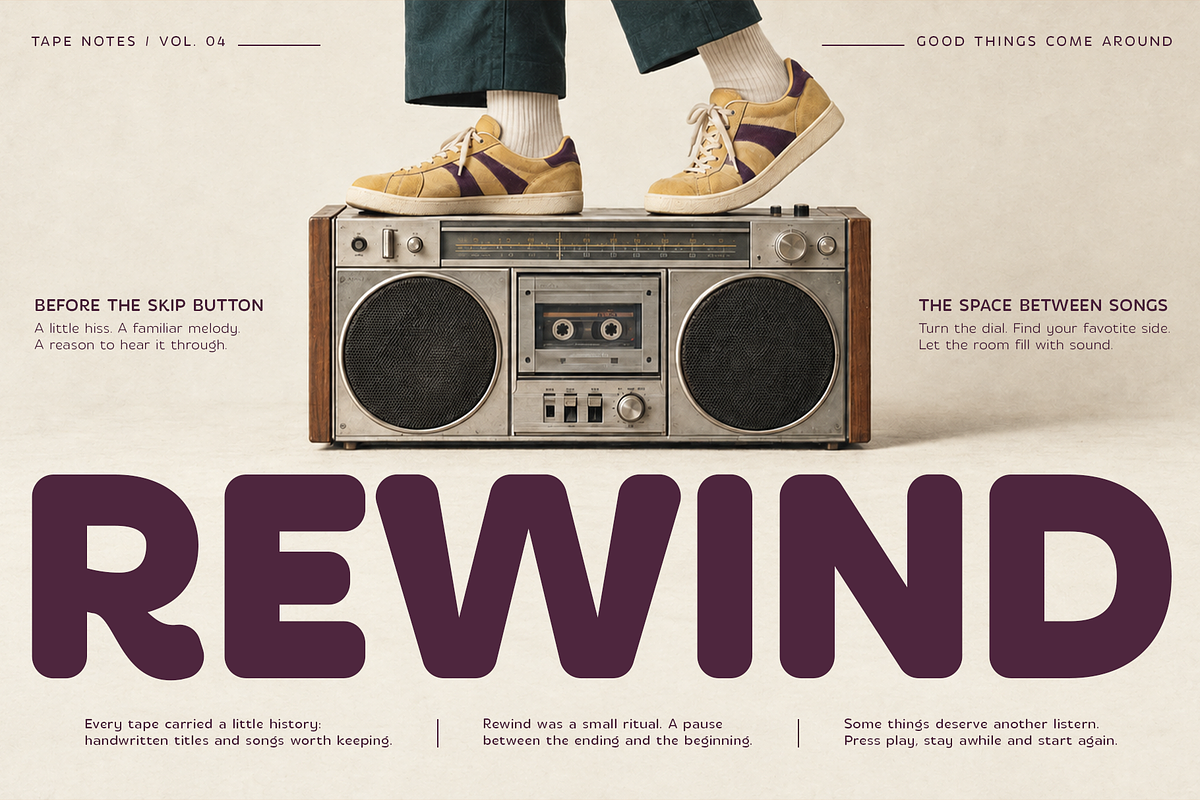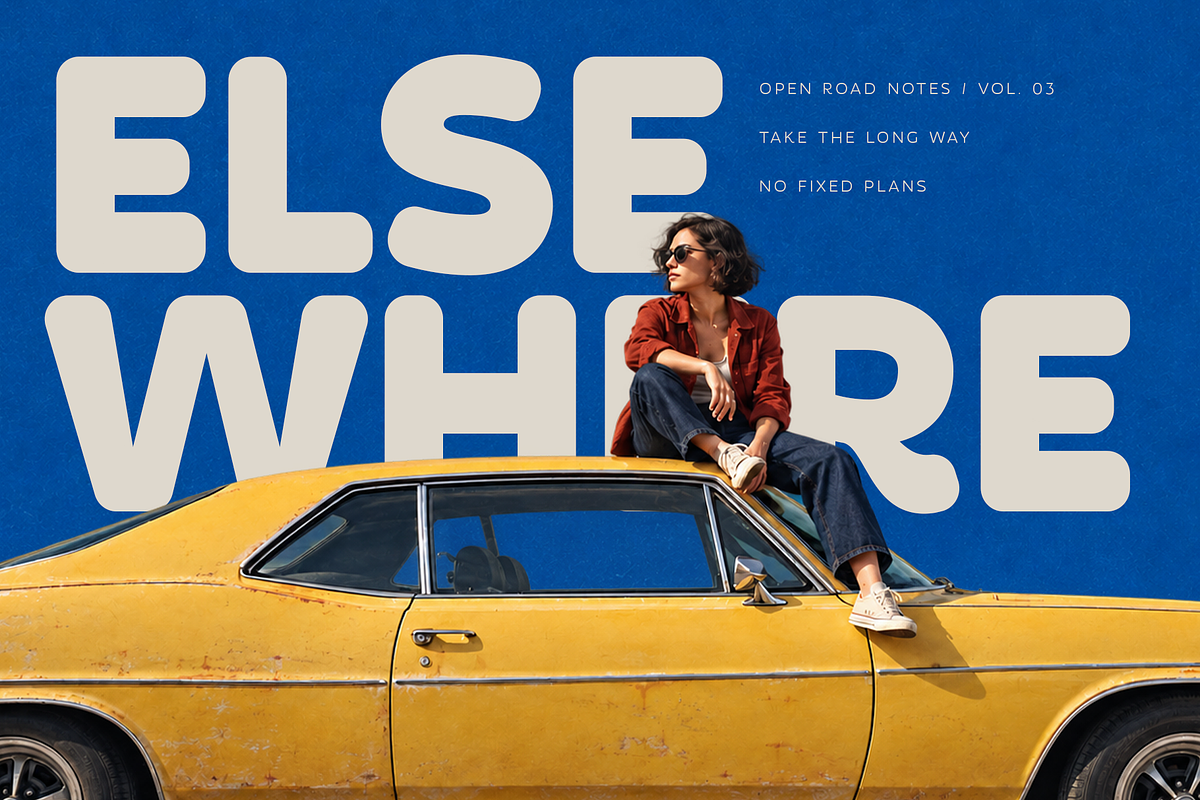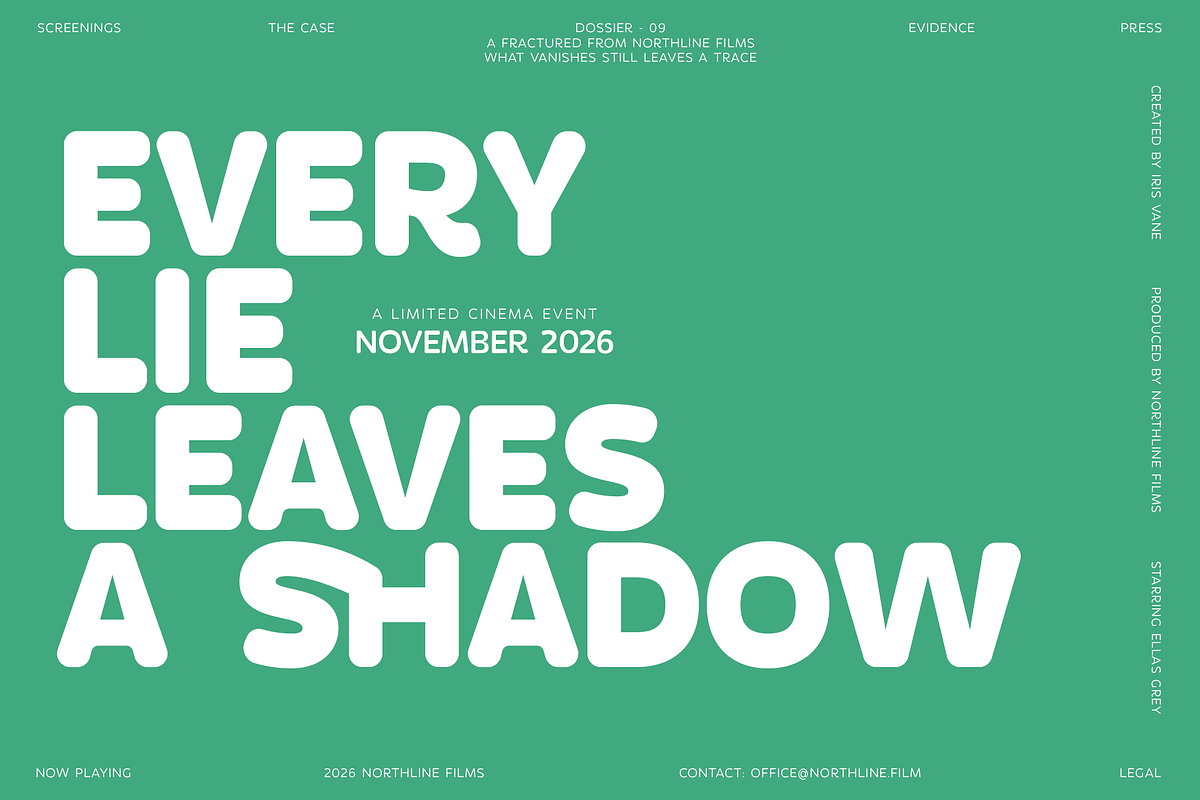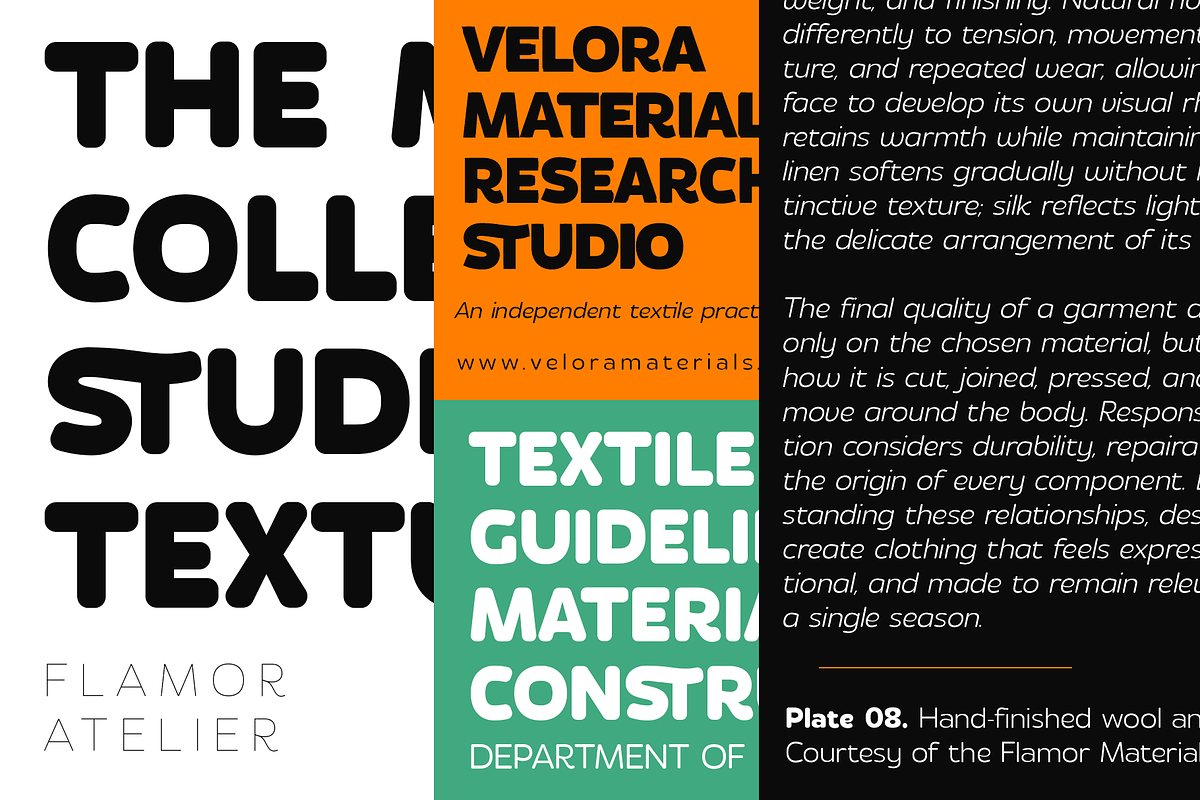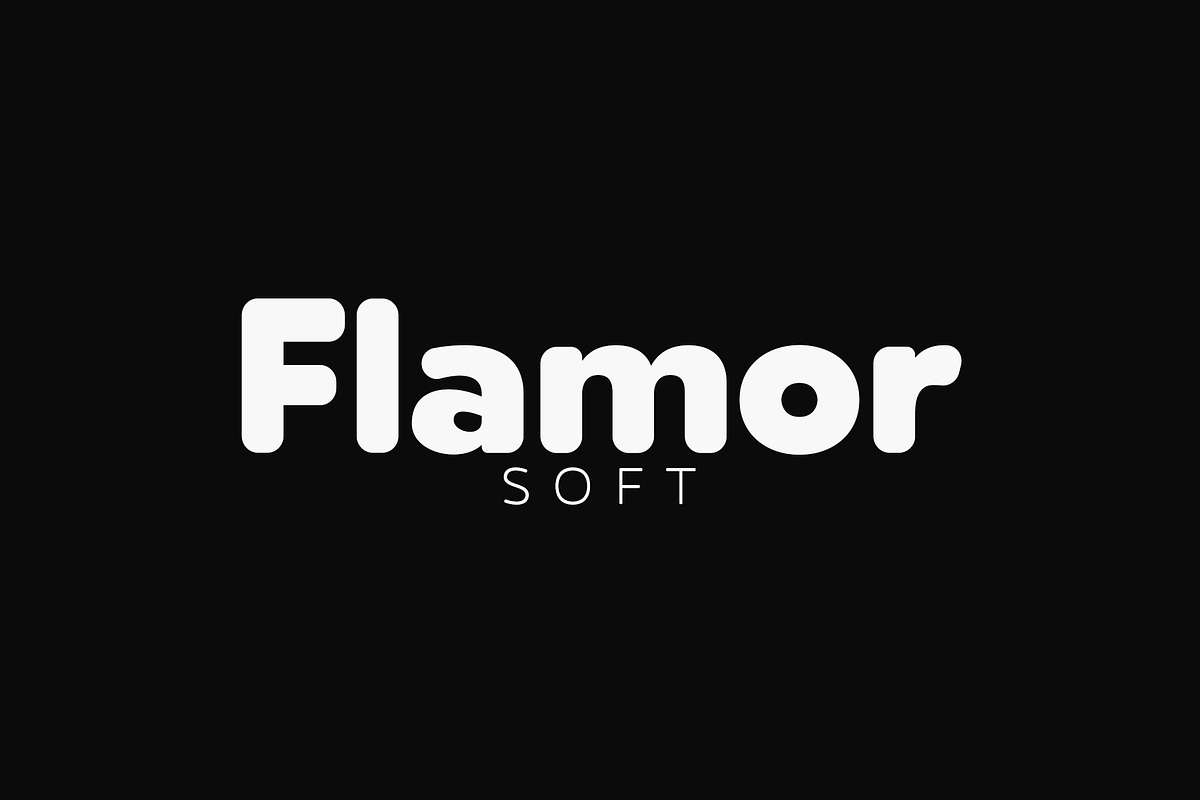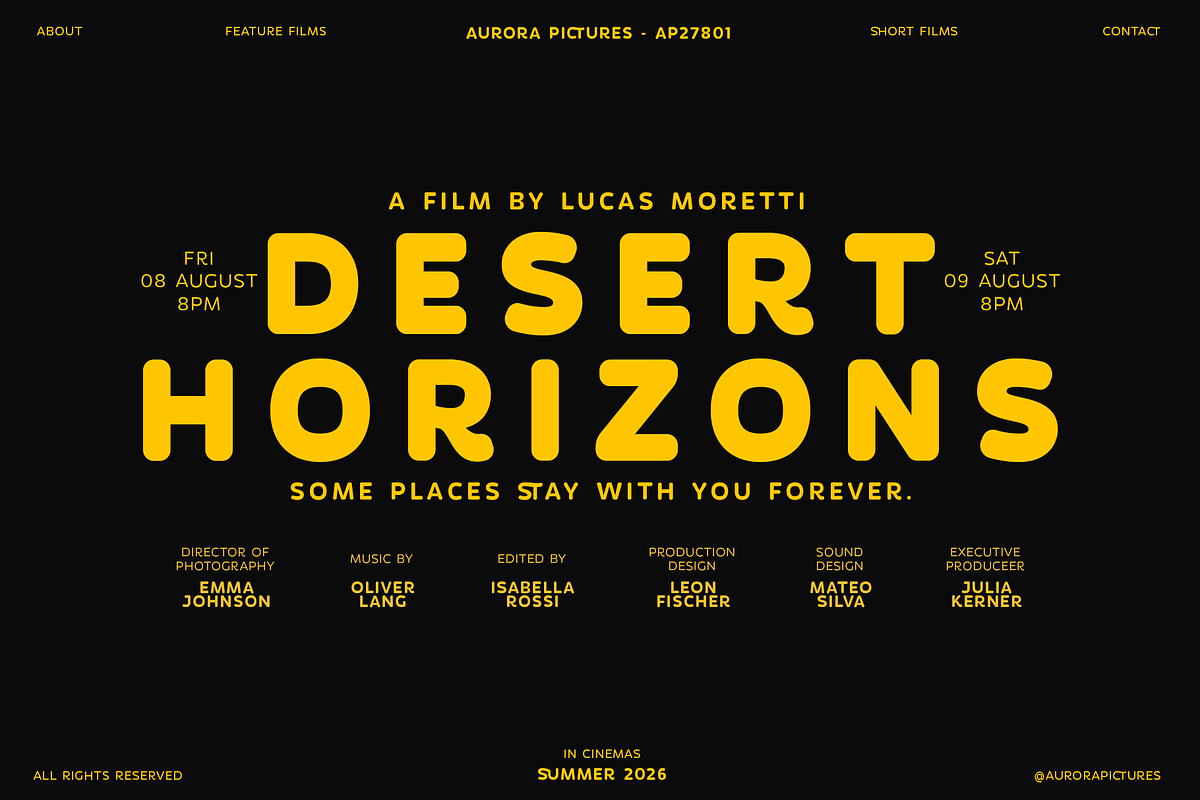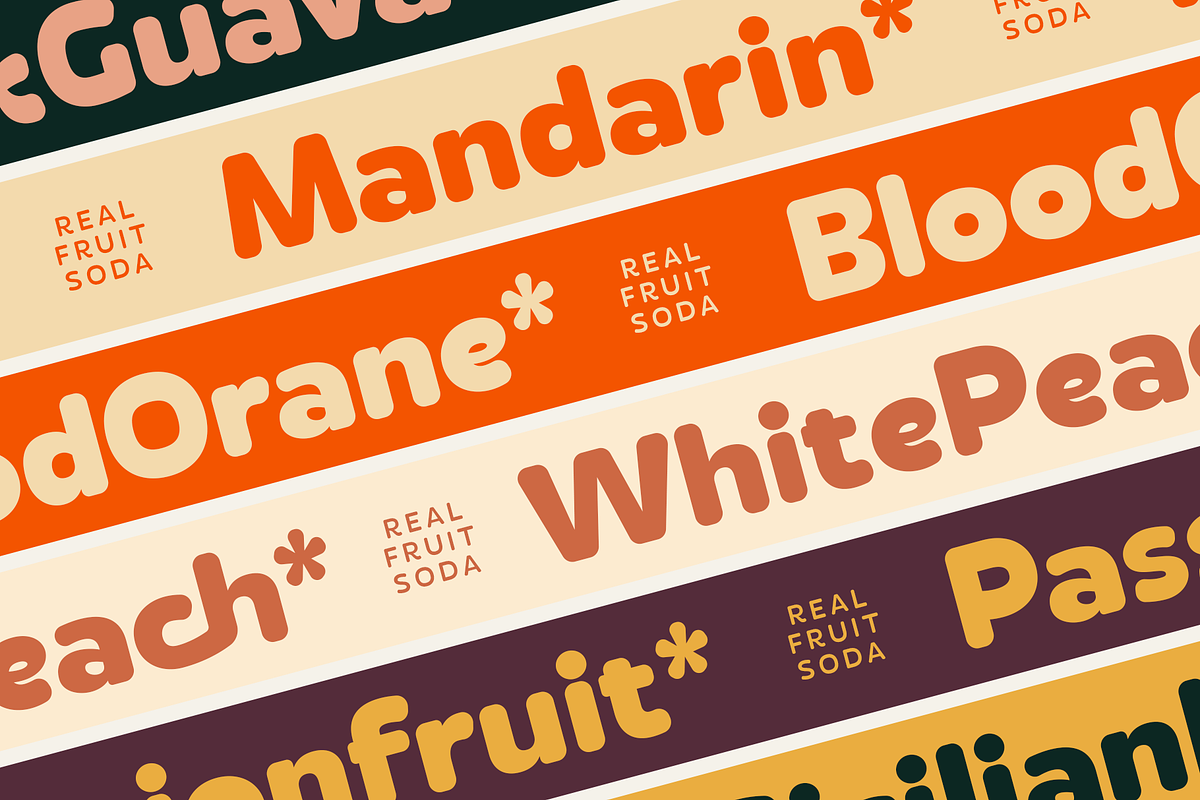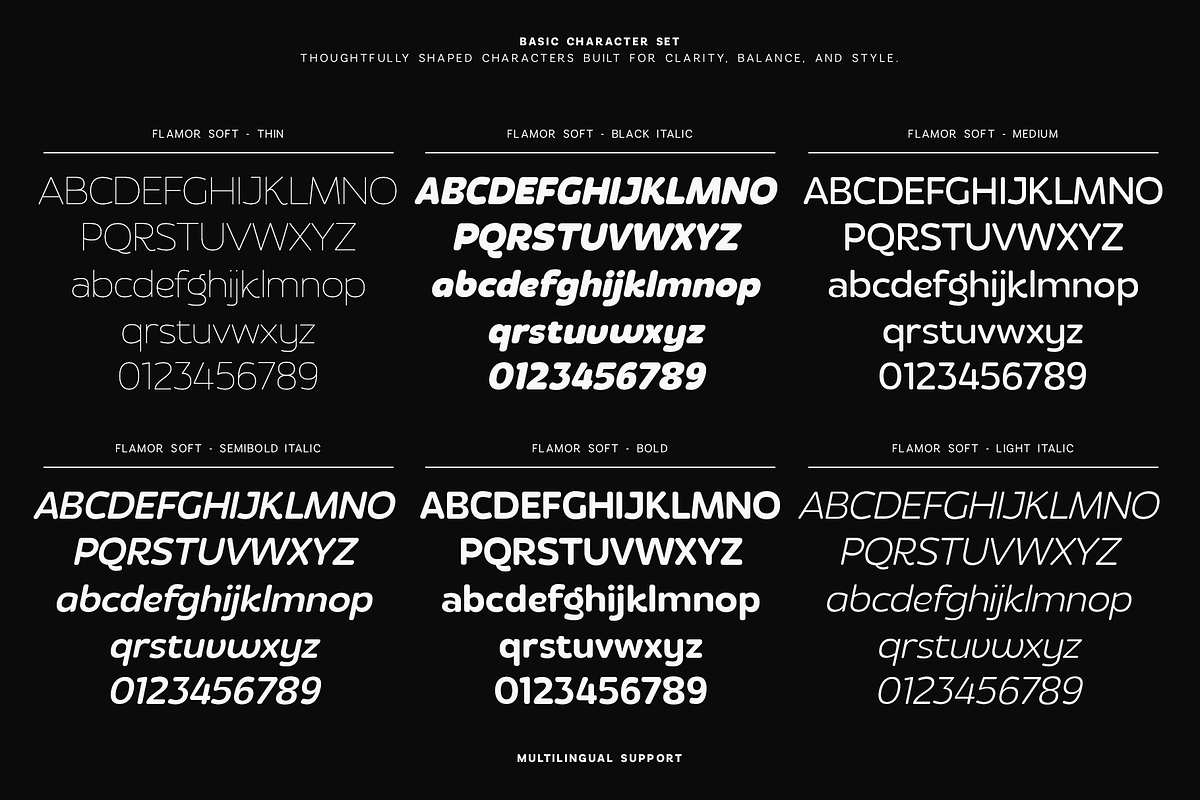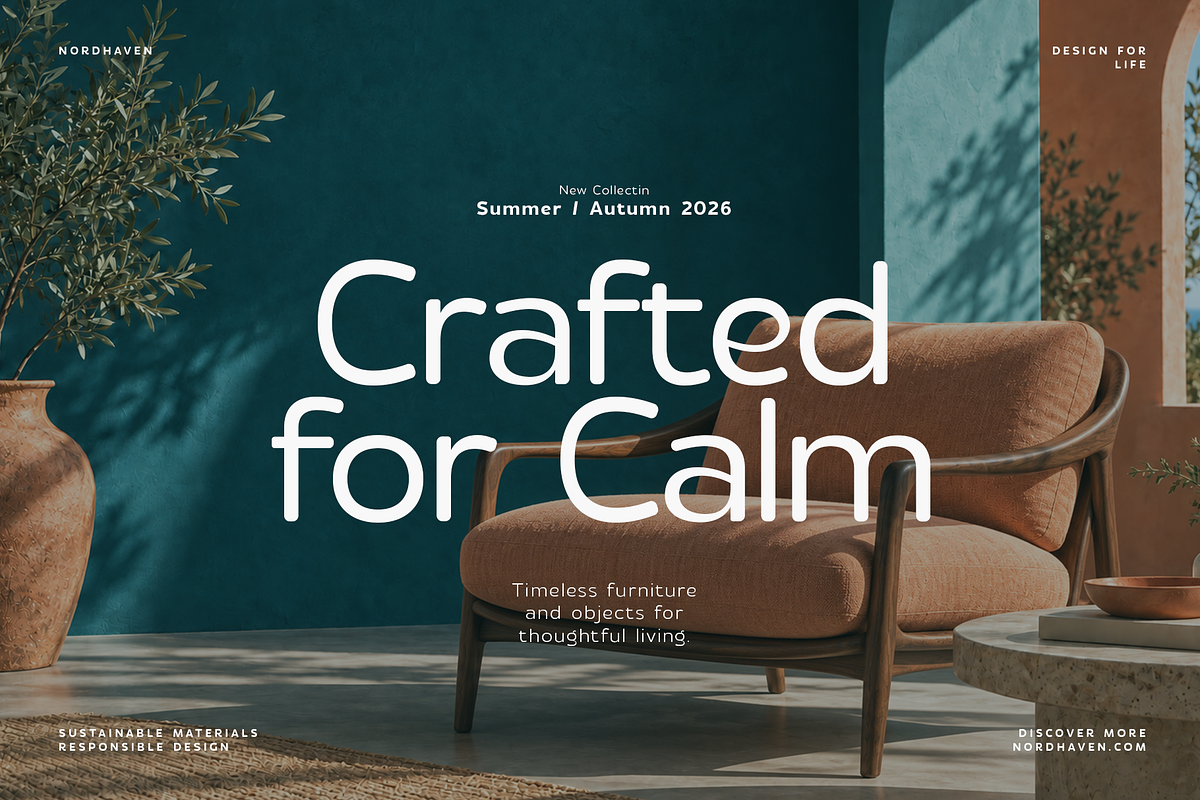
Flamor Soft - Rounded Sans Serif
Flamor Soft is a rounded sans serif font family for distinctive logos, modern branding, packaging, and editorial design. Wide proportions, soft corners, and expressive letterforms give it a warm, confident presence - from a simple lowercase wordmark to a headline that fills the page.
The family includes nine weights from Thin to Black, matching true italics, and 18 static fonts. Combine lighter styles with bold headlines to build a consistent visual identity, or adjust the weight more precisely with the included variable font.
Custom ligatures and alternate characters give you more ways to shape recognizable wordmarks and titles. The collection also includes 26 logo marks, bringing additional graphic elements to your branding projects, product labels, and packaging.
Flamor Soft feels at home in café identities, food and beverage packaging, beauty and wellness brands, and contemporary lifestyle projects. Its heavier weights bring personality to posters and magazine covers, while lighter styles offer a quieter look for supporting typography.
18 static fonts: nine upright styles and nine matching true italics
Nine weights: Thin, ExtraLight, Light, Regular, Medium, SemiBold, Bold, ExtraBold, and Black
Variable font for adjustable weight
Custom ligatures and alternate characters
26 logo marks
Uppercase and lowercase letters, numerals, and punctuation
Extended Latin multilingual support